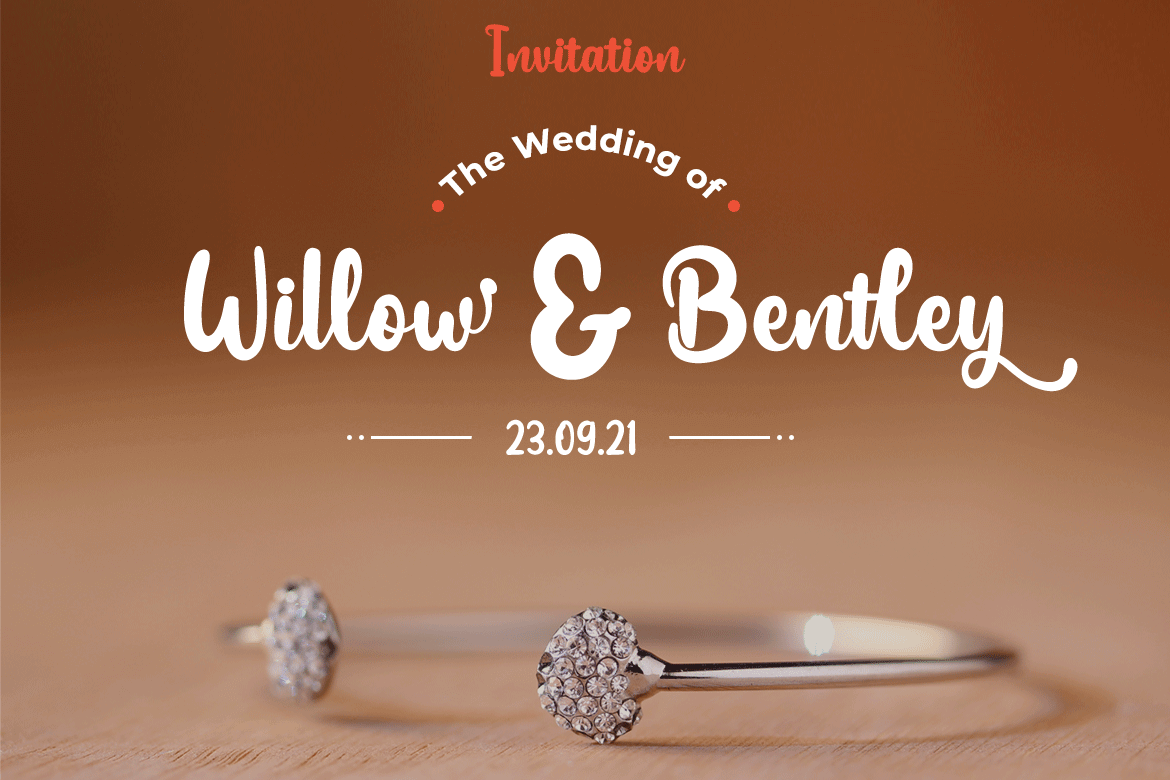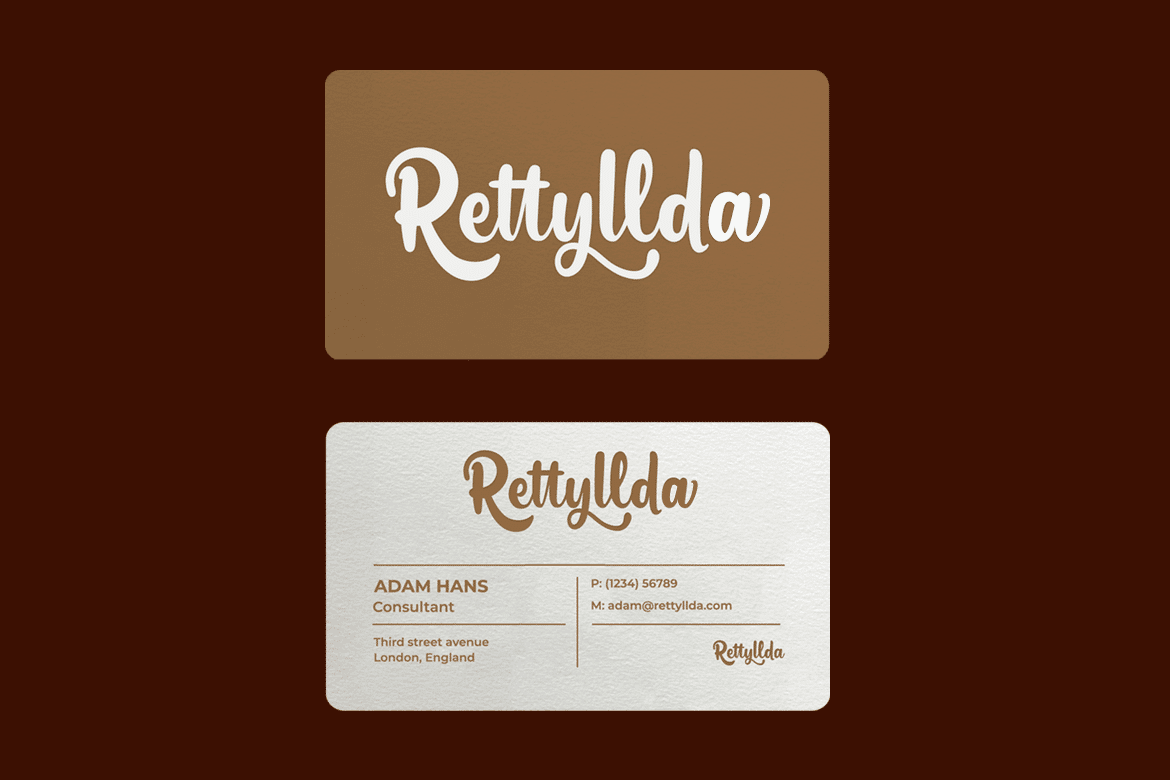
Rettyllda Font
Rettyllda is a Script Font that seems like it was handmade. This typeface has an exquisite, simple, lovely blend and harmony between letters, making it ideal for your particular project.